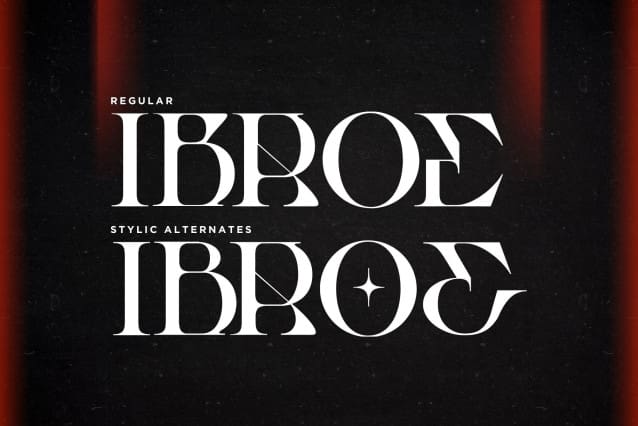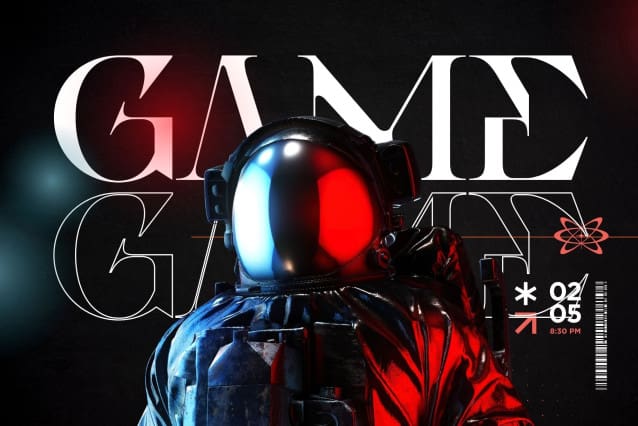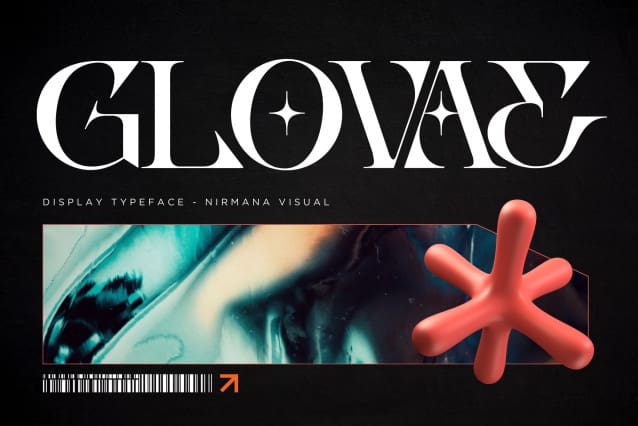
Glovae Font
Glovae Font – Modern offers beautiful typographic harmony for a diversity of design projects, including logos & branding, social media posts, advertisements & product designs.